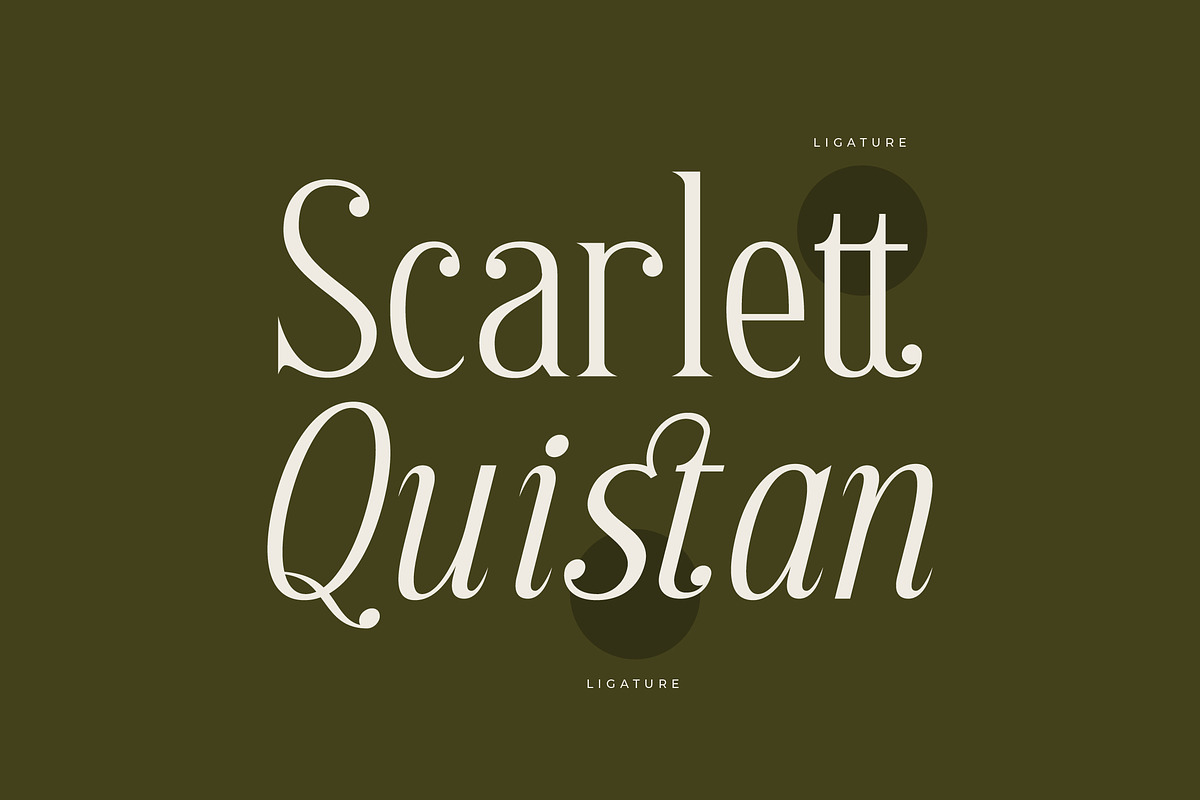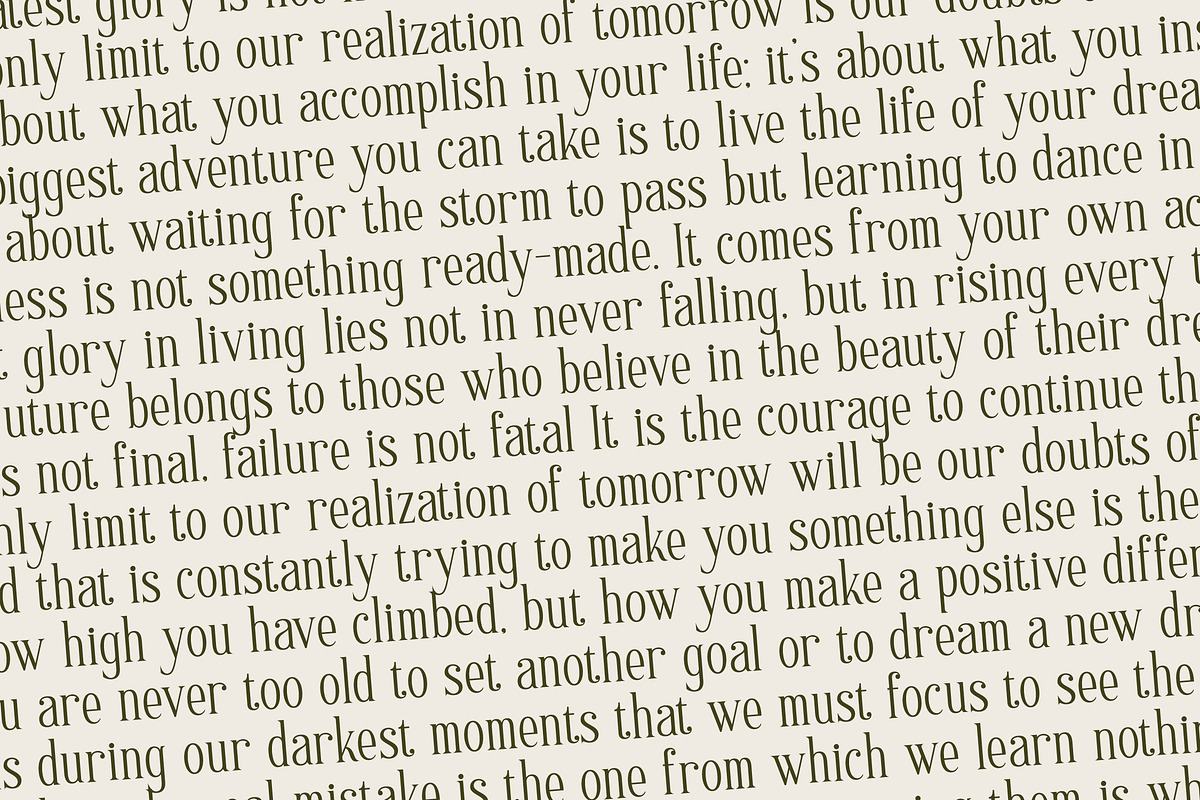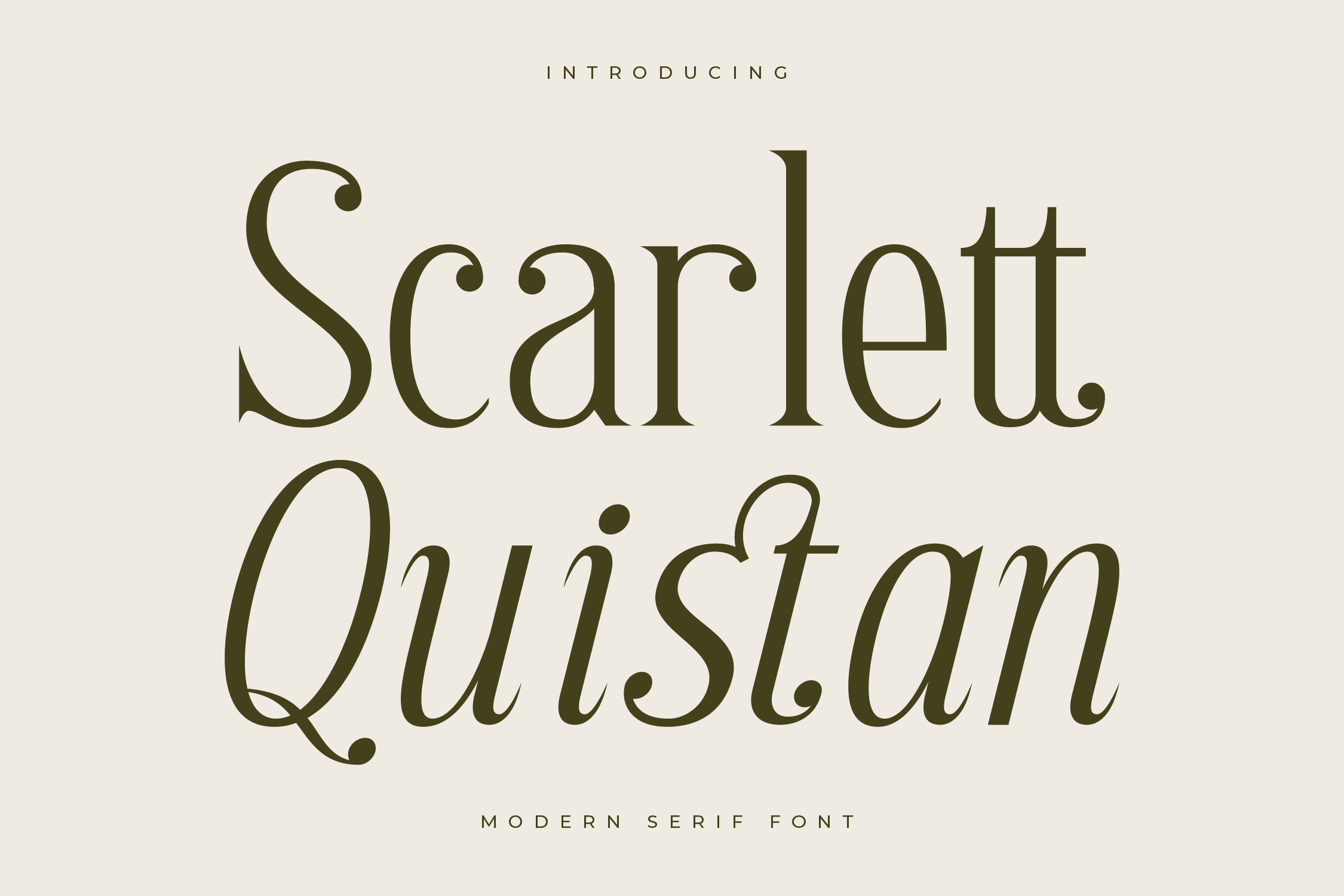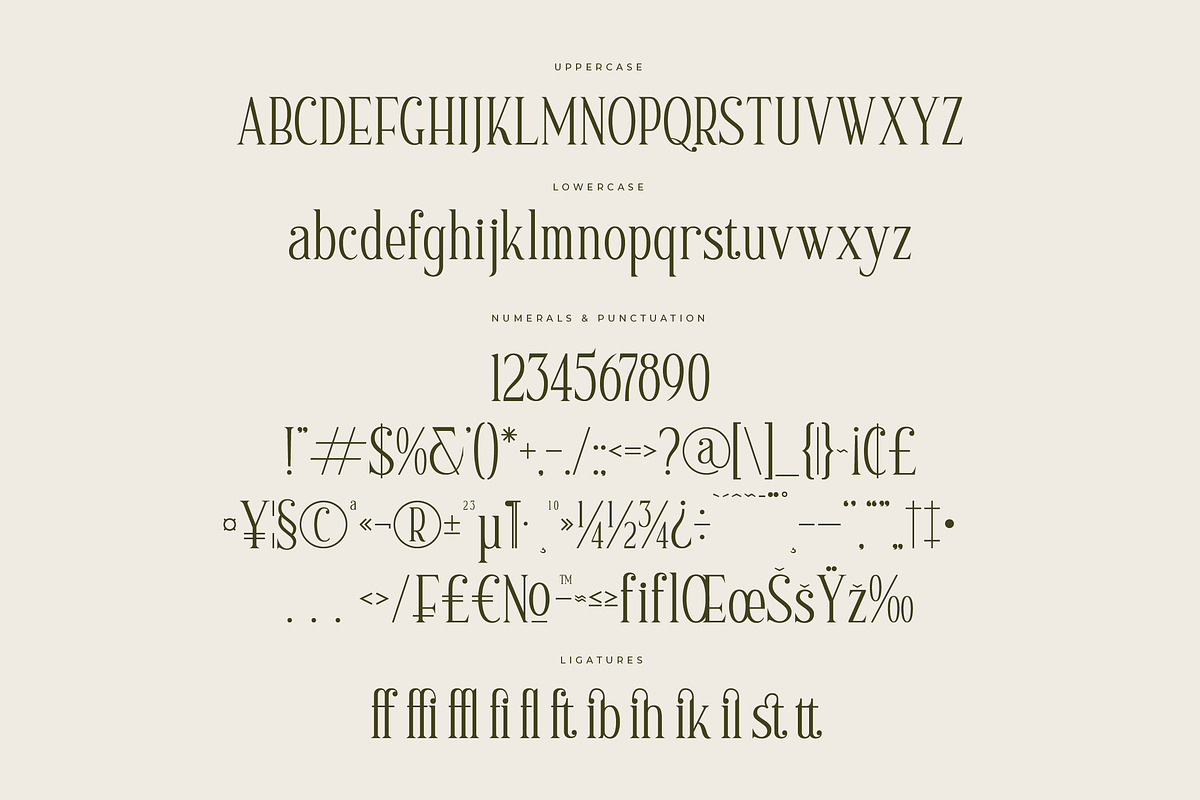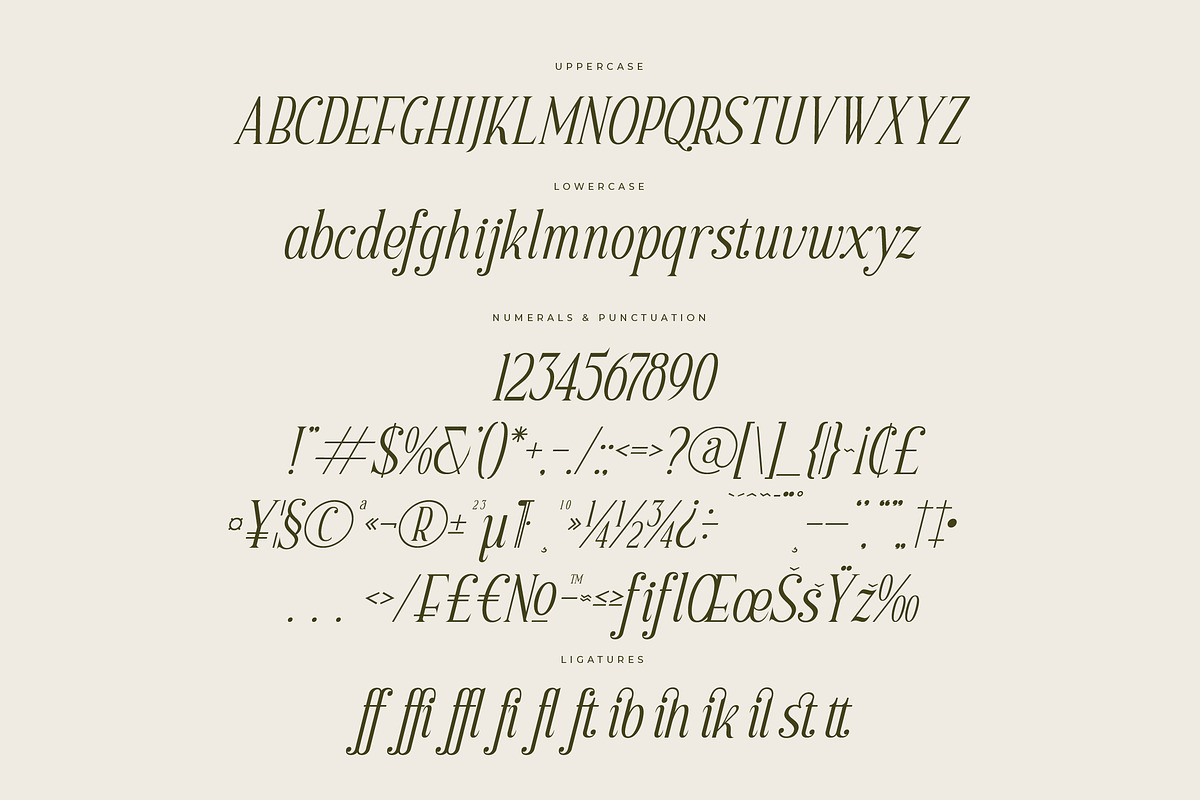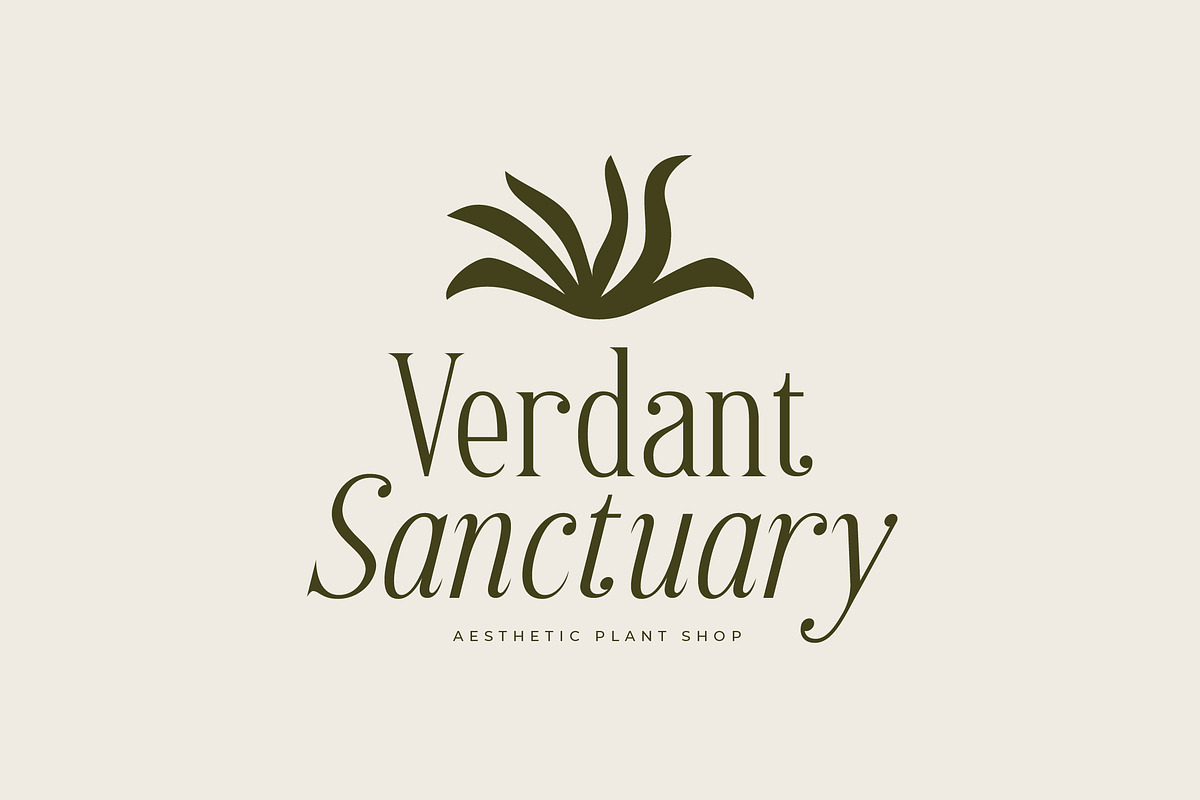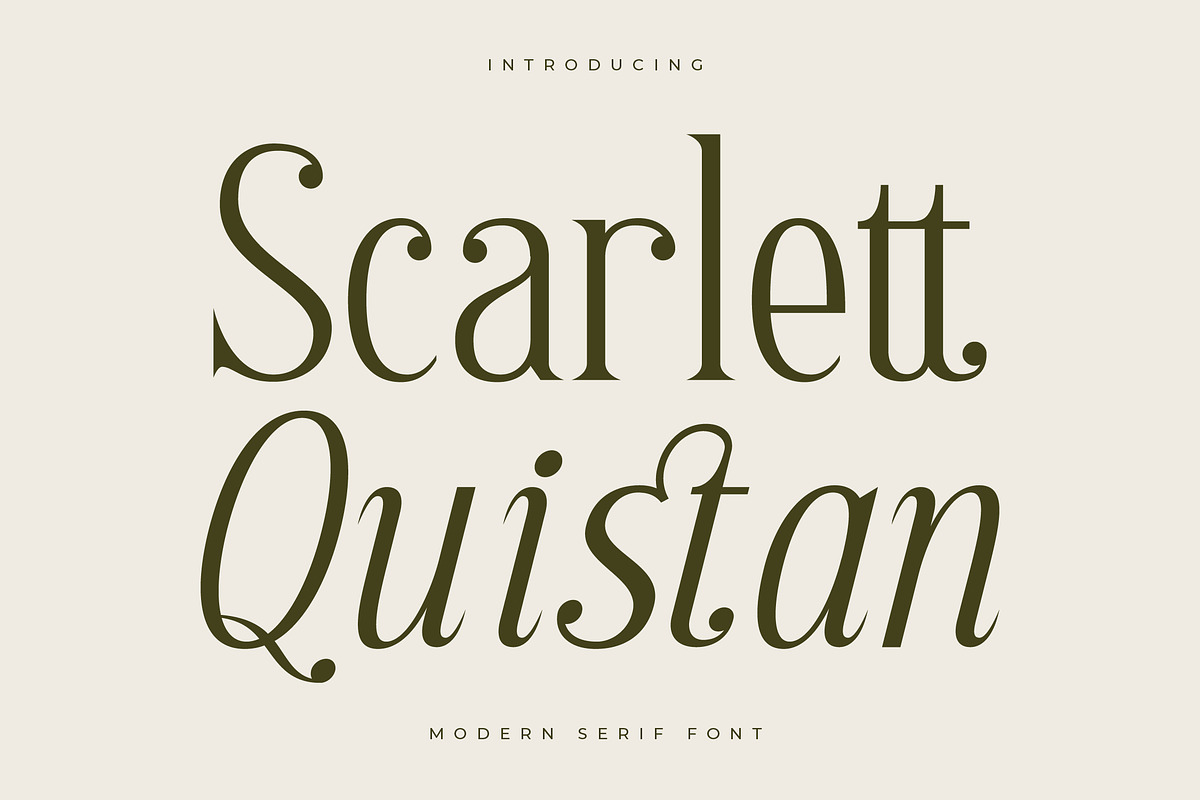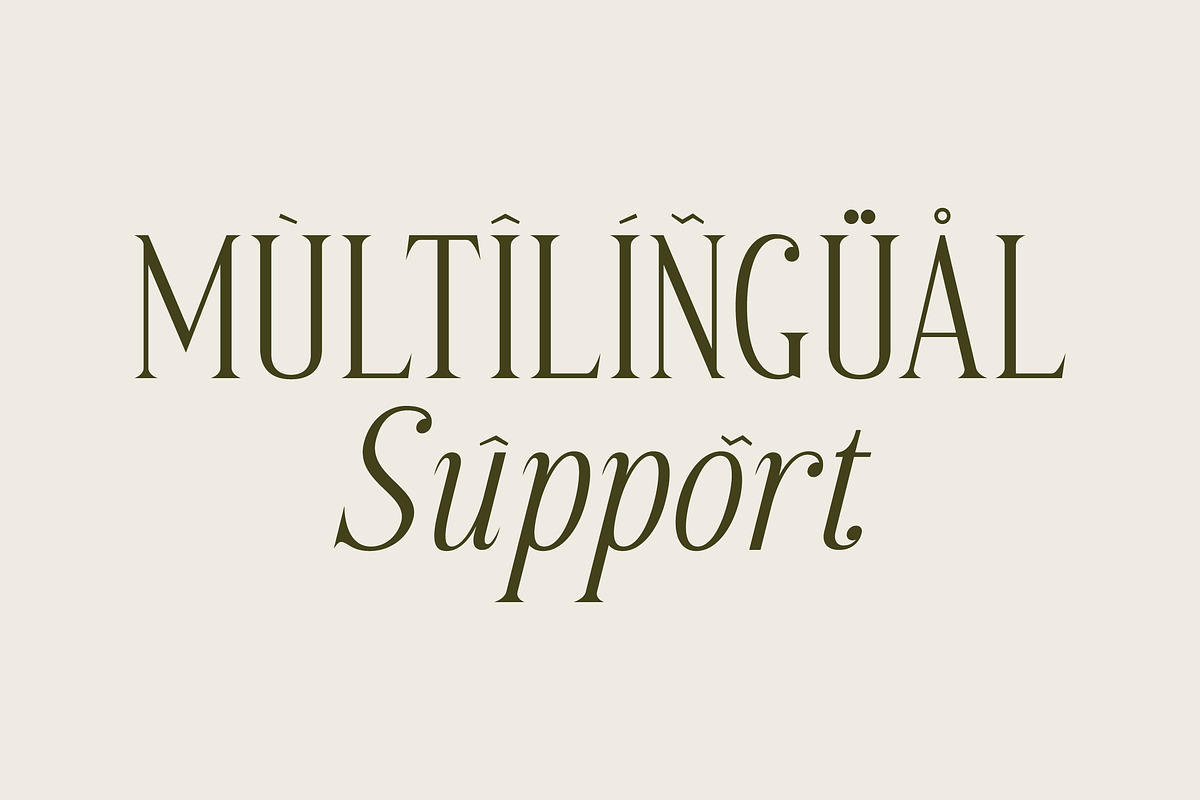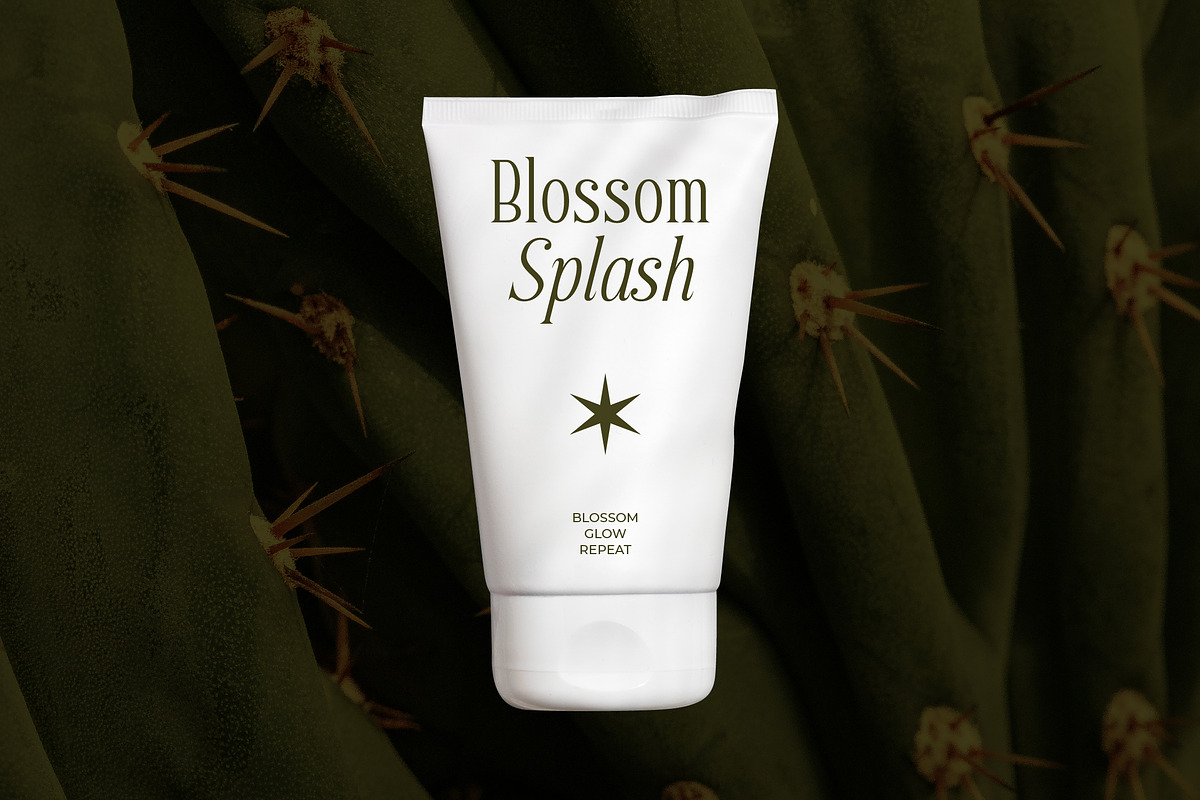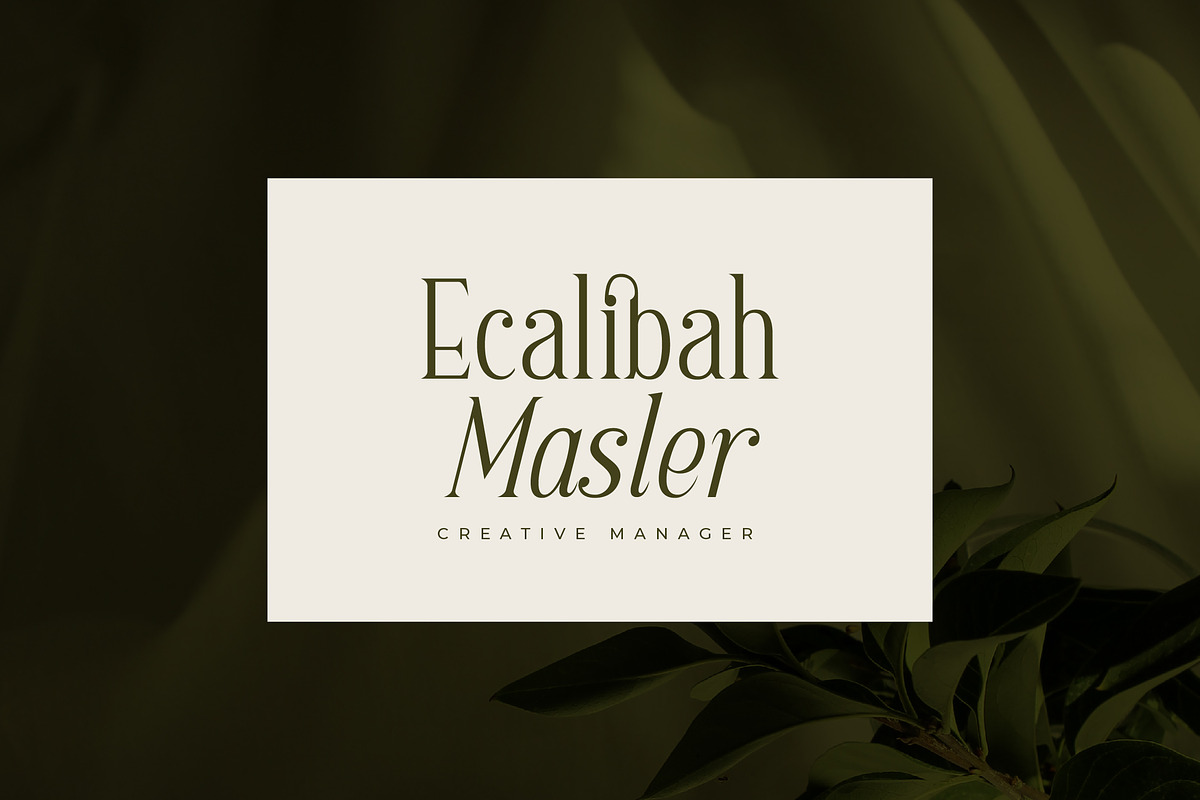
Scarlett Quistan Modern Serif Font
Scarlett Quistan - Modern Serif Font , from Letterena, is a Luxury Serif font, suitable for any projects such as: logos, branding projects, homeware designs, product packaging, mugs, quotes, posters, shopping bags, t-shirts, book covers, name card, invitation cards, greeting cards, label, photography, watermark, special events, and all your other luxury and beautiful projects that need a Luxury Serif taste.